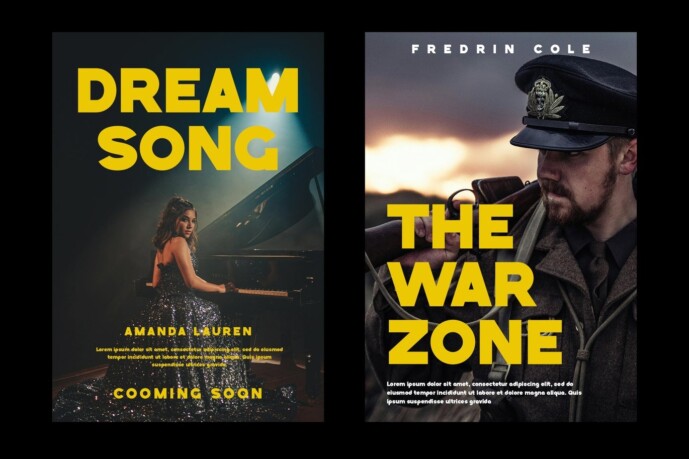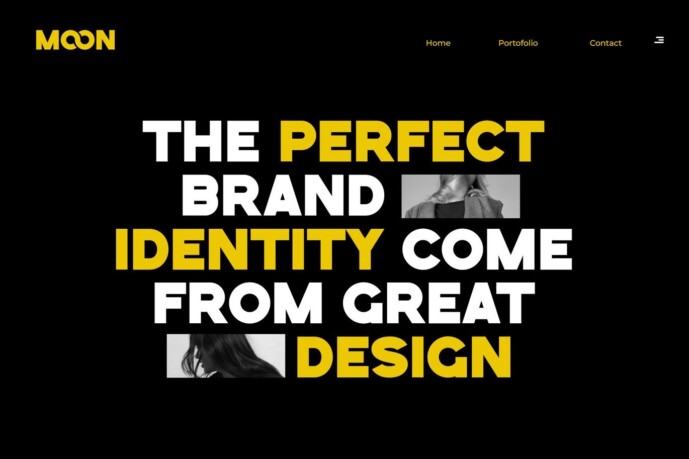
Meragon Font
Meragon Font is a bold brand sans font inspired by industrial aesthetics. Meragon is the perfect choice for any creative activity, lifestyle design such as logotype, advertisements, watermark on a photograph, stationery, branding project, display and magazine, invitation, corporate branding, product design, label, commercial project and many other projects with a modern or industrial.